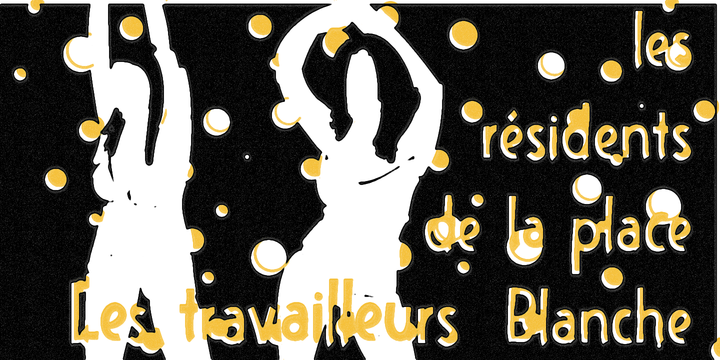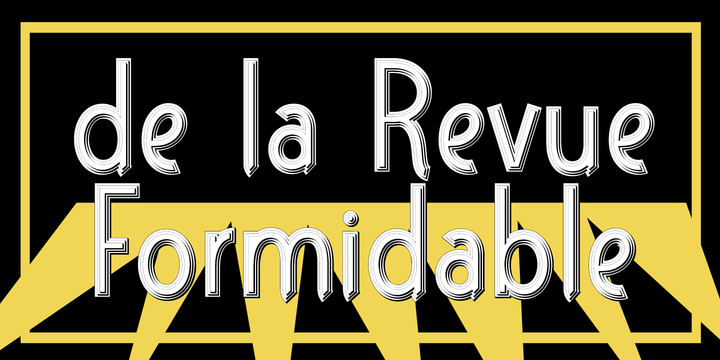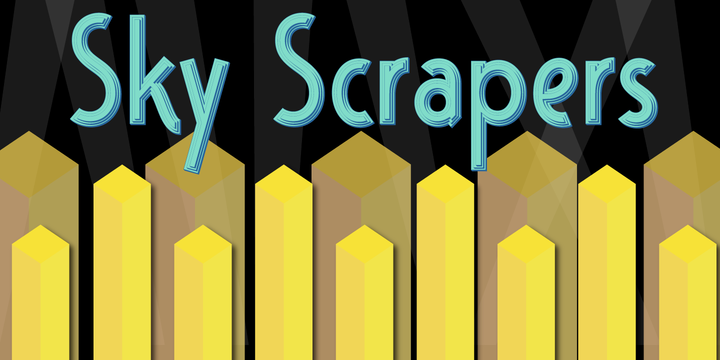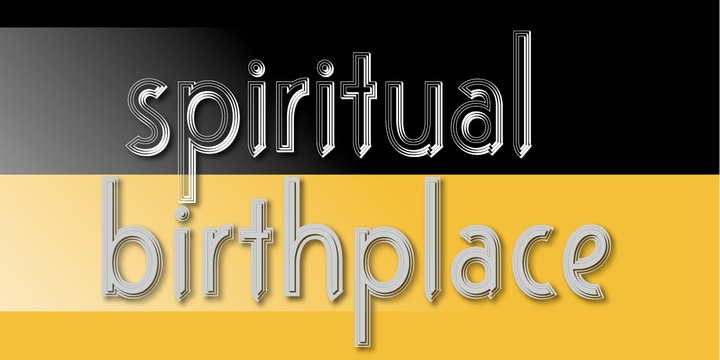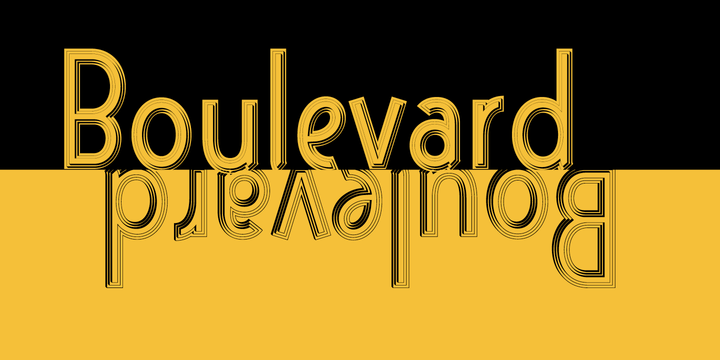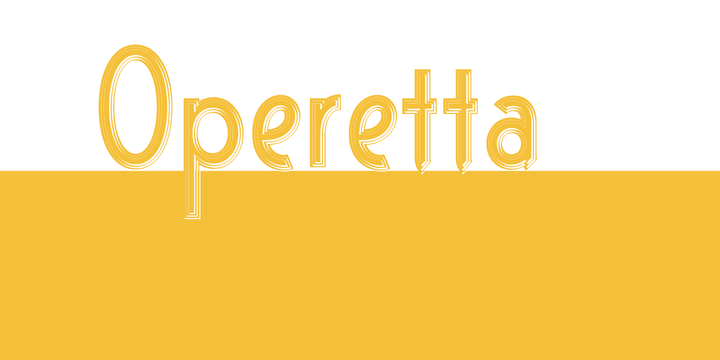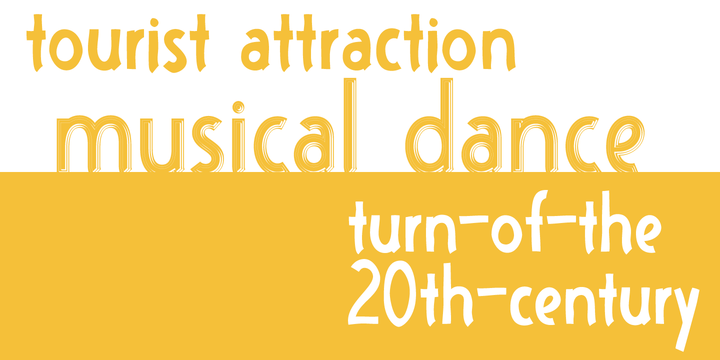
Doriss Girls Family
About Doriss Girls Family Font
Dorriss girls were the dancing troop at the Moulin Rouge. I had the idea for this font while trying to come up with an alternative to beveling. I thought it would be interesting to create this sort of stepped effect as I’ve never really seen this treatment on a font before.
Then my need to create chaos shows up again with Doriss Girls informal. A hand drawn take on the forms. This seemed like it would appear on an old art nouveau poster by the great Toulouse Lautrec, so there you have the genesis of this font.
I’ve been somewhat compelled by the letterforms so I may expand and create a more normal version of this font someday with a range of weights. That would be the bees knees.